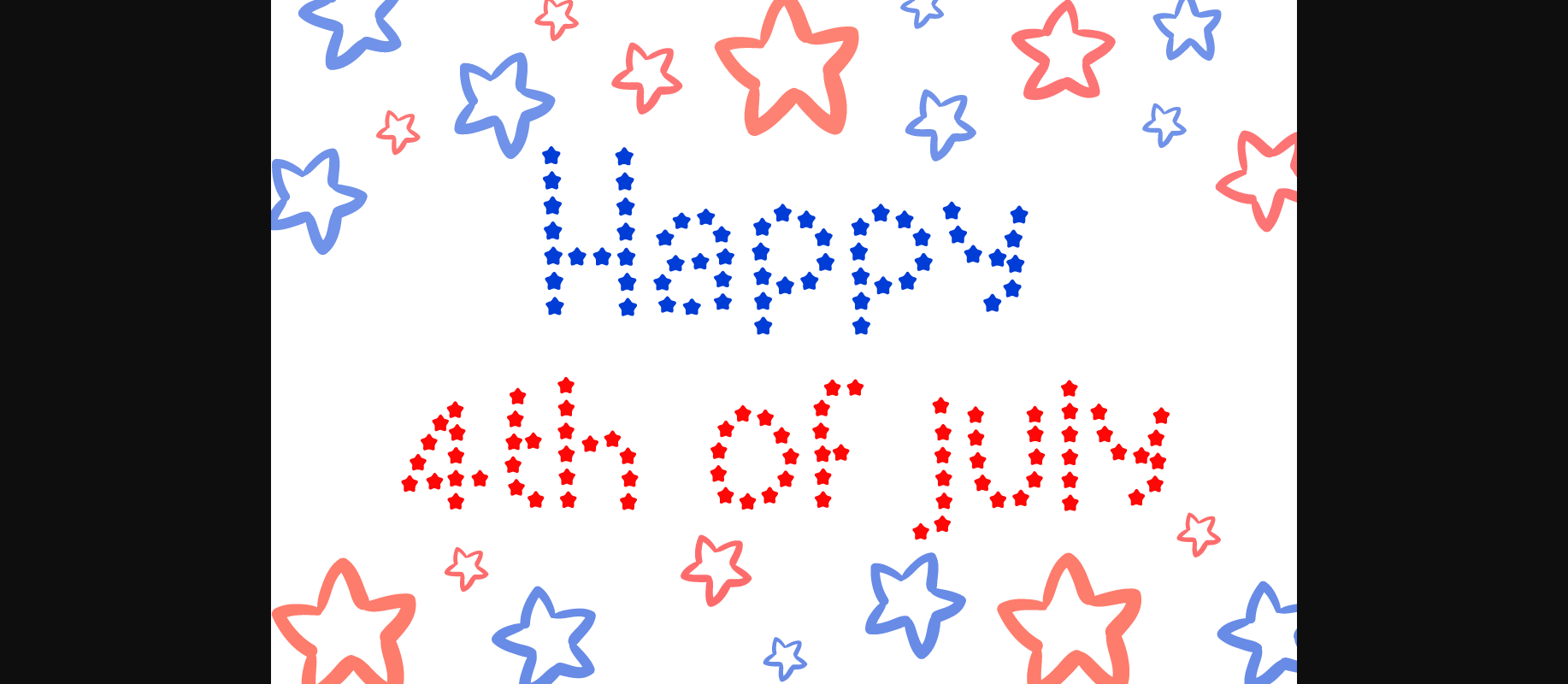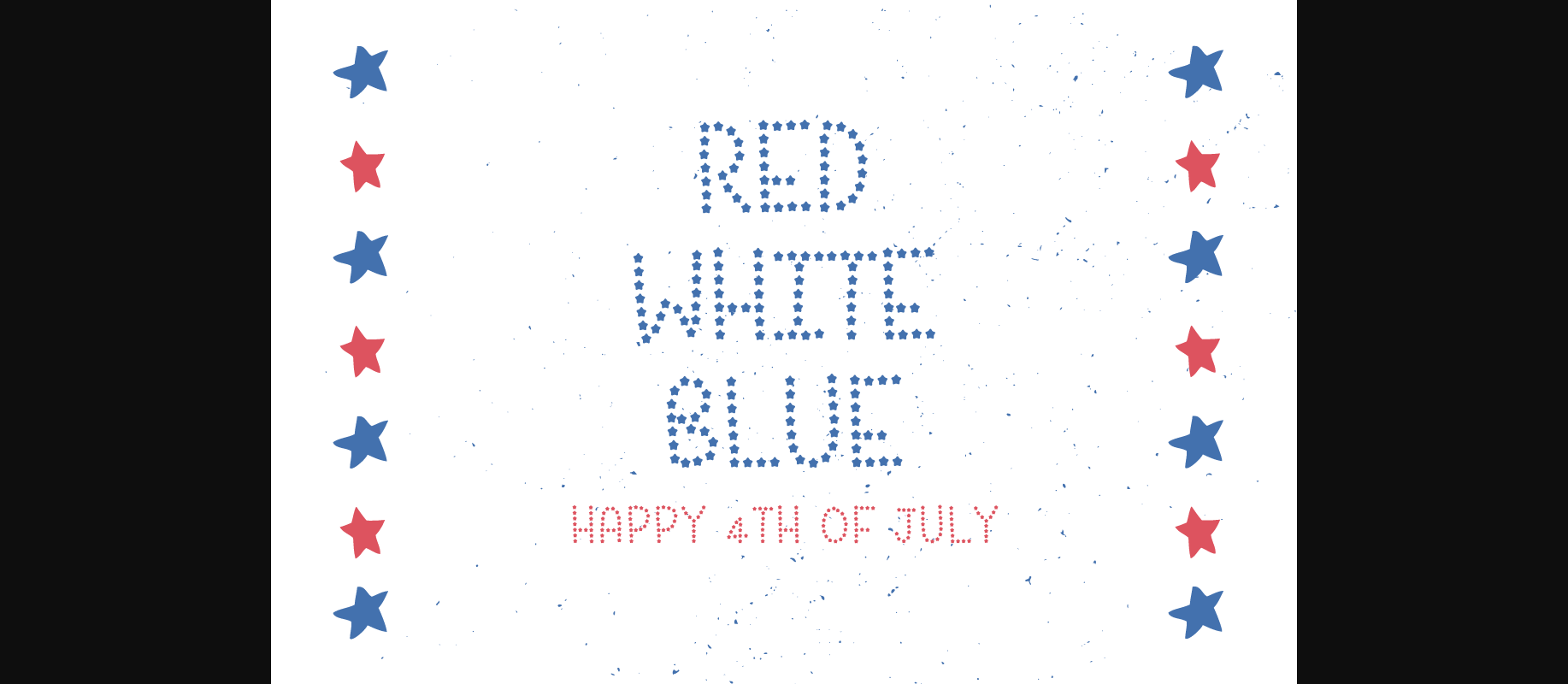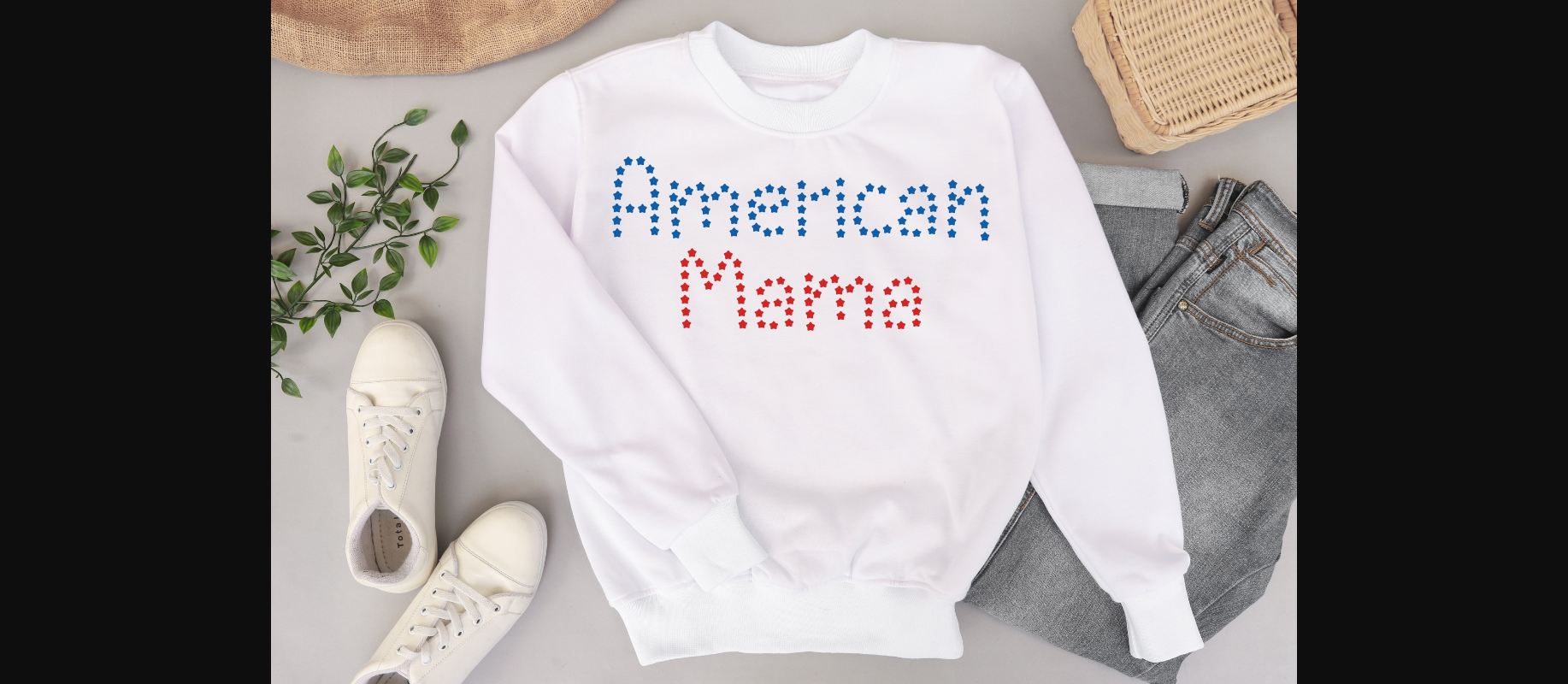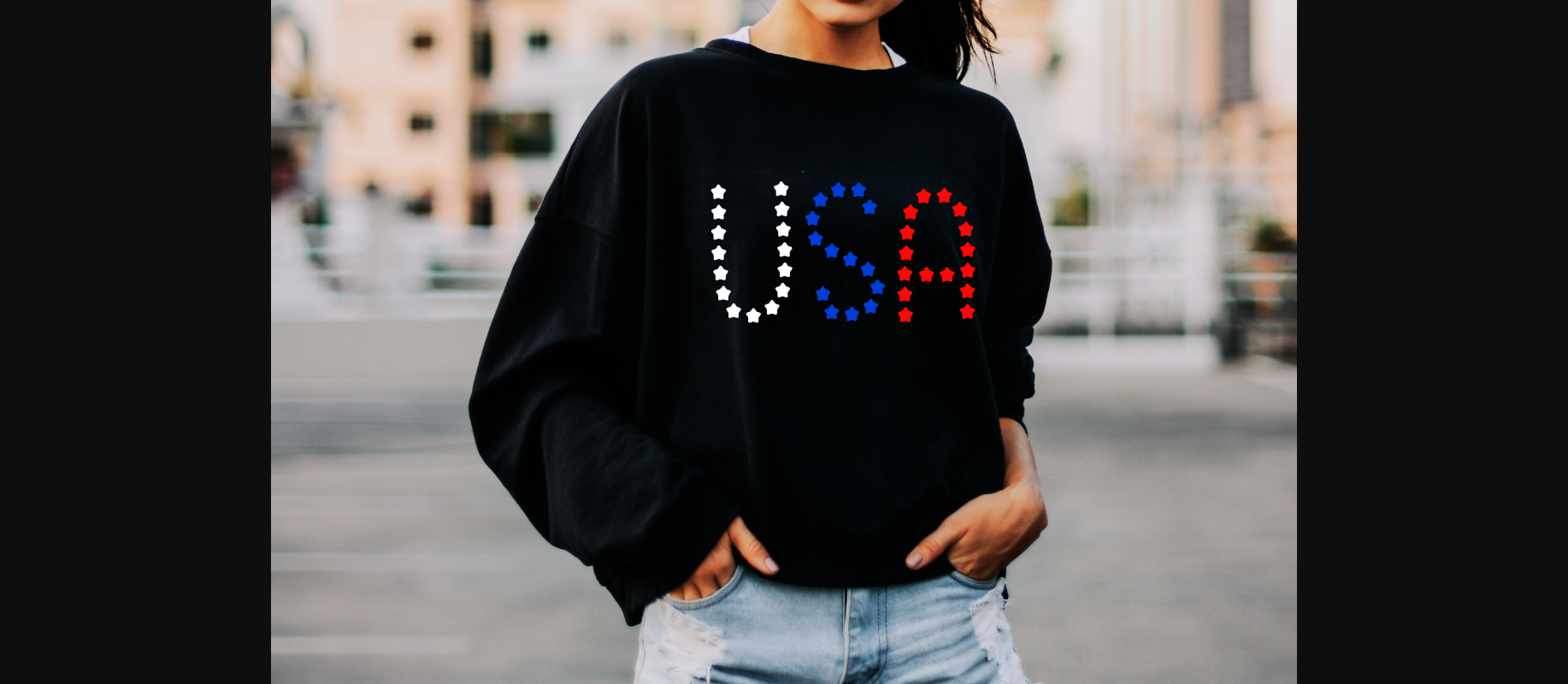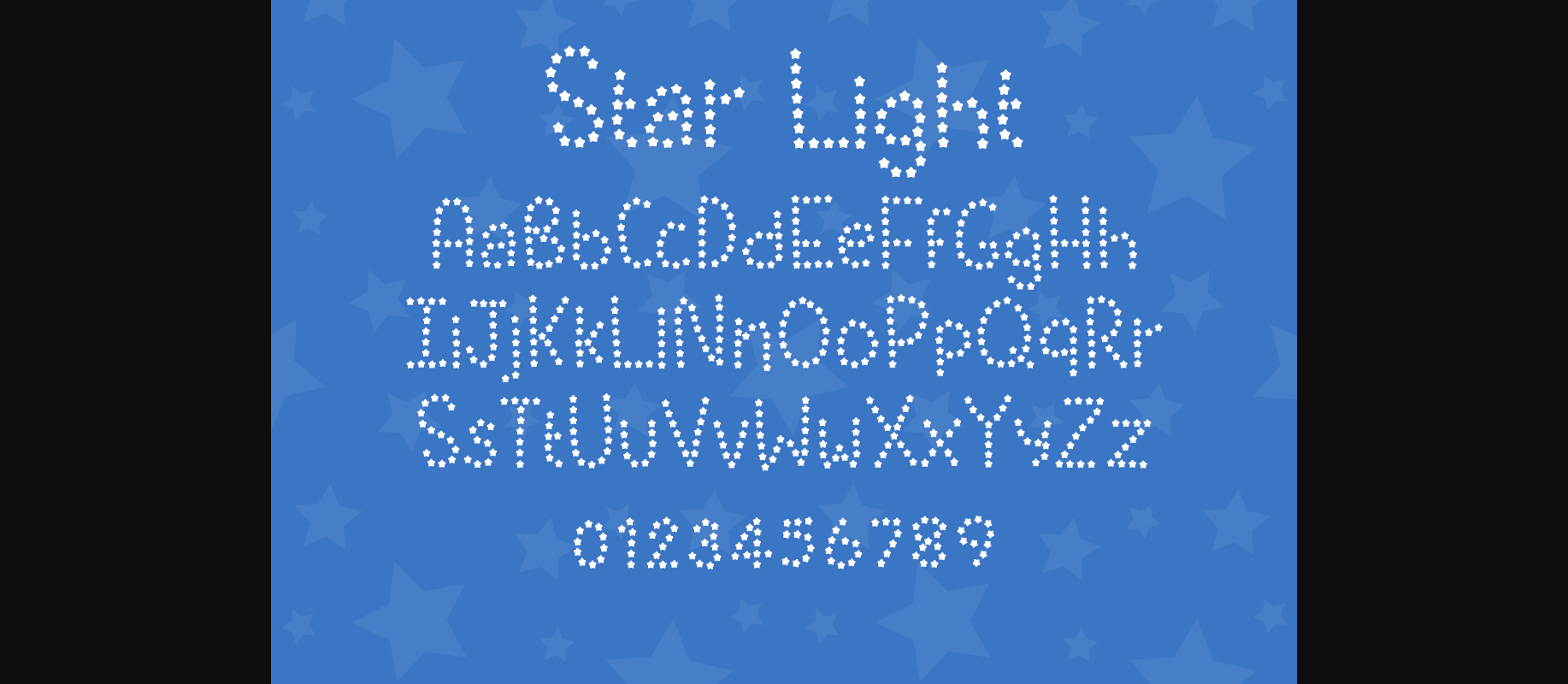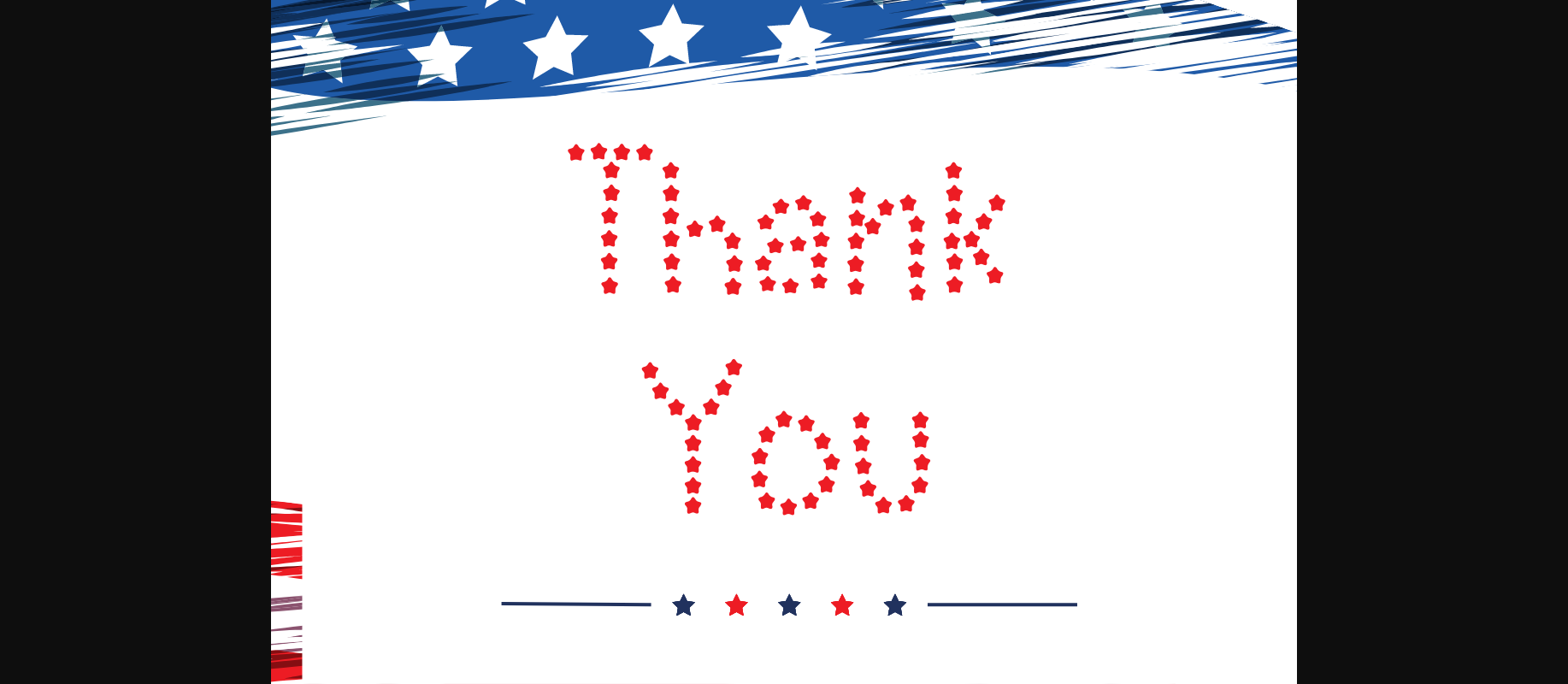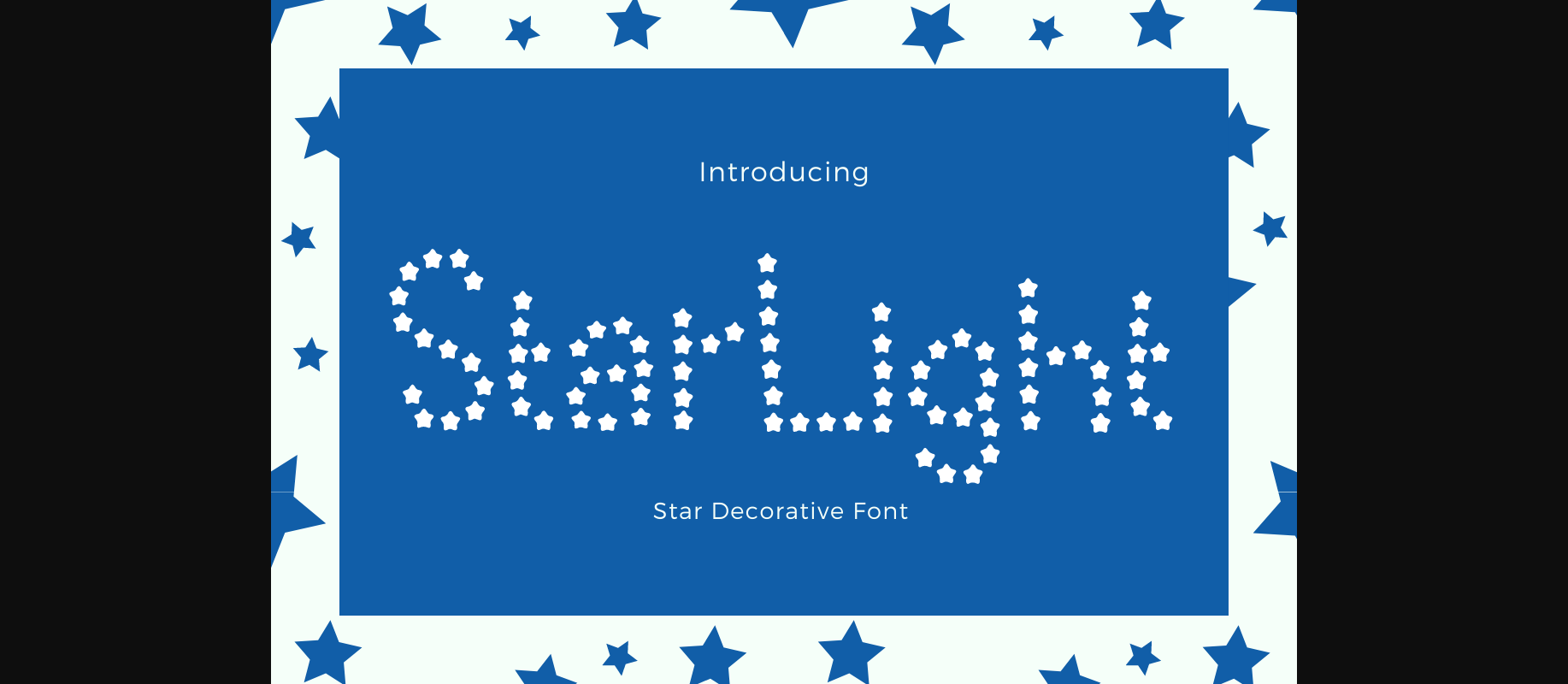
HomeDecorative FontsStar Light Font Decorative Fonts Star Light Font FacebookXPinterestWhatsApp 1 of 9 ... Star Light Font Poster 2... Star Light Font Poster 3... Star Light Font Poster 4... Star Light Font Poster 5... Star Light Font Poster 6... Star Light Font Poster 7... Star Light Font Poster 8... Star Light Font Poster 9... About Star Light Font Star Light is a decorative font that is cute and fun. Perfect for adding a touch of sparkle to your creative designs! DOWNLOAD NOW People also explored Brownie Stencil – Slab Serif Stencil Font Balmy Day Font Monogram Font Angel Love Font Calming Adventure Font Calathea Font Road Stone Font England Font Amsterdam Laviera Font 380 0 TagsStar Light Font Previous articleFlos Mediocris FontNext articleLaterem Quad Font LEAVE A REPLY Cancel reply Comment: Please enter your comment! Name:* Please enter your name here Email:* You have entered an incorrect email address! Please enter your email address here Website: Save my name, email, and website in this browser for the next time I comment. Personal Use Free Wanita Cantik Personal Use Free Read more about this font Delions Personal Use Free Read more about this font Sehat Selalu Personal Use Free Read more about this font Rumaniaya Personal Use Free Read more about this font BLOG Best Fonts for T-Shirt Design – Top 2025 Picks In 2025, t-shirt design has become more than just fashion—it's a form of self-expression. Whether you're... Best Fonts for YouTube Videos: Make Your Thumbnails Stand Out Where to Buy American Fonts Online in 2024 How to Cut Any Font on Cricut: Convert a Font to SVG (Free)